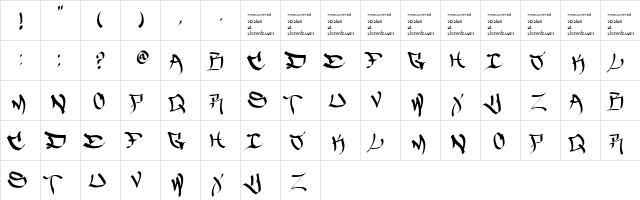
The FiveOneTwo Regular
Design Context for The FiveOneTwo Typeface
The FiveOneTwo is a composed and adaptable typeface that performs quietly and consistently across a wide range of design contexts.